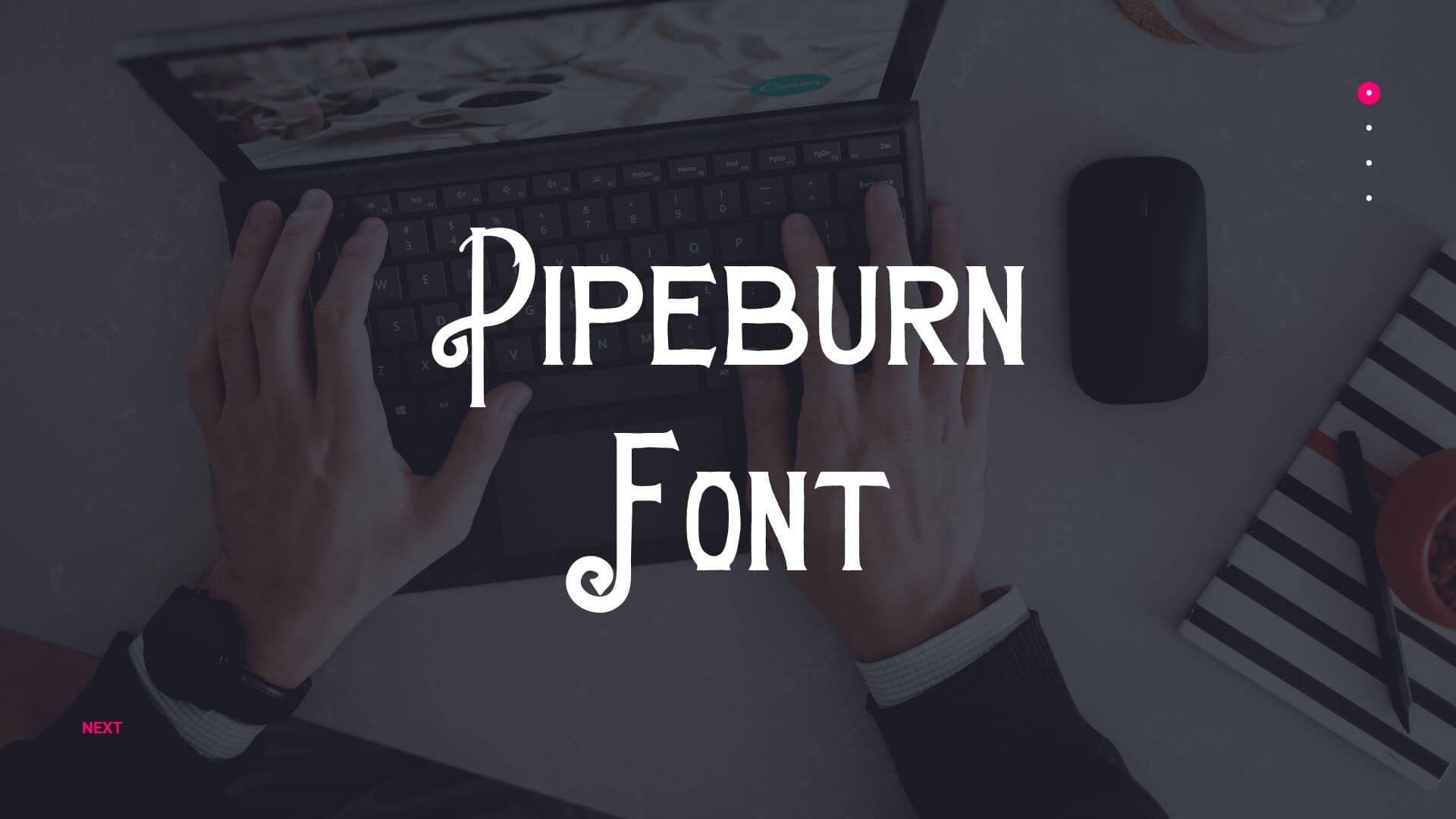
Pipeburn Font Family is a new glorious typeface that is belonging to the calligraphy typeface family. This stylish typeface was created and published in 2014 by Try & Error Studio.
This font comprises many other alternative styles, so it can use for an extensive range in the Vintage designing field. Furthermore, every kind is available with capital letters like The Godfather Font, numerals, and a few punctuation marks.
Pipeburn Font